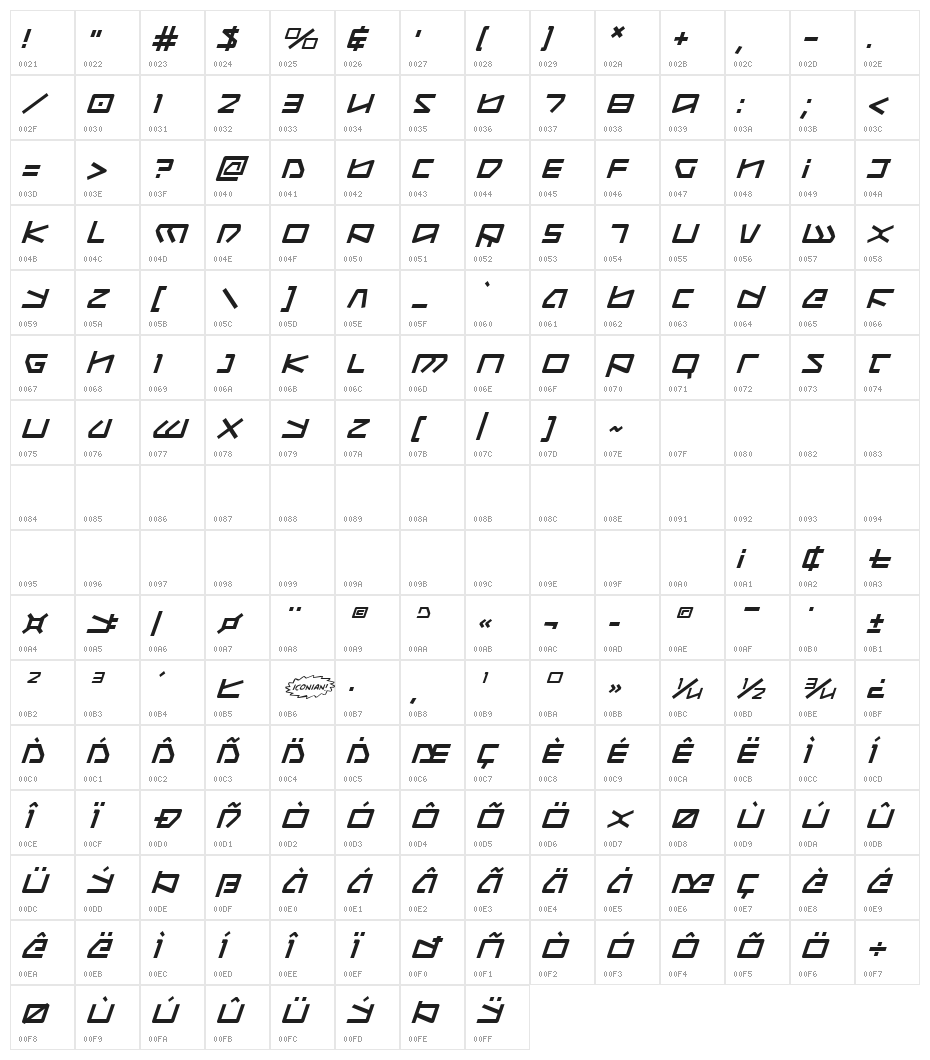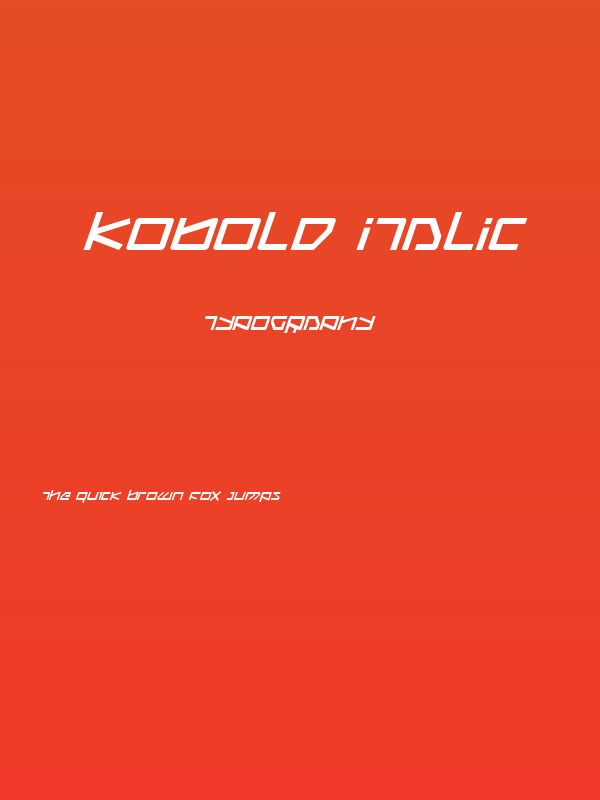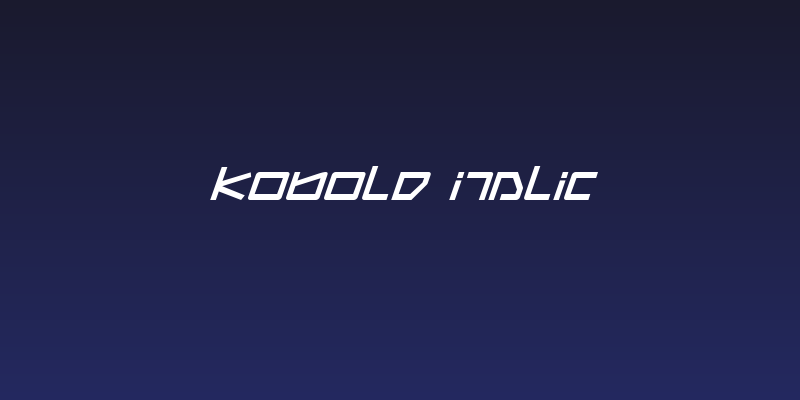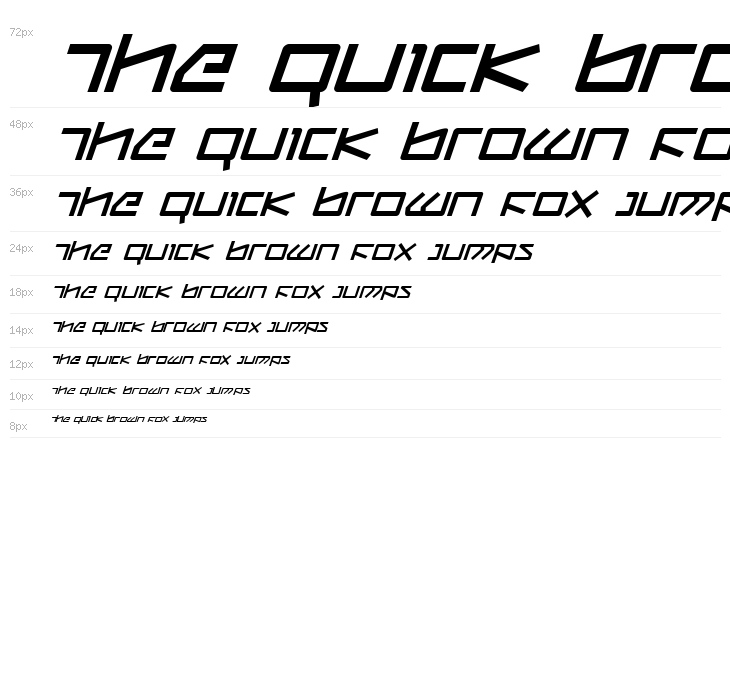
Kobold Italic Font
Kobold Italic Description
This font features a futuristic and angular design, characterized by its sharp edges and geometric shapes. The italic style adds a dynamic and forward-leaning appearance, enhancing its modern aesthetic. Each character is distinct, with a consistent slant that contributes to a cohesive look. The uppercase and lowercase letters maintain a uniform style, while the numerals and special characters integrate seamlessly into the overall design. This font's unique structure makes it stand out, offering a bold and innovative visual experience.